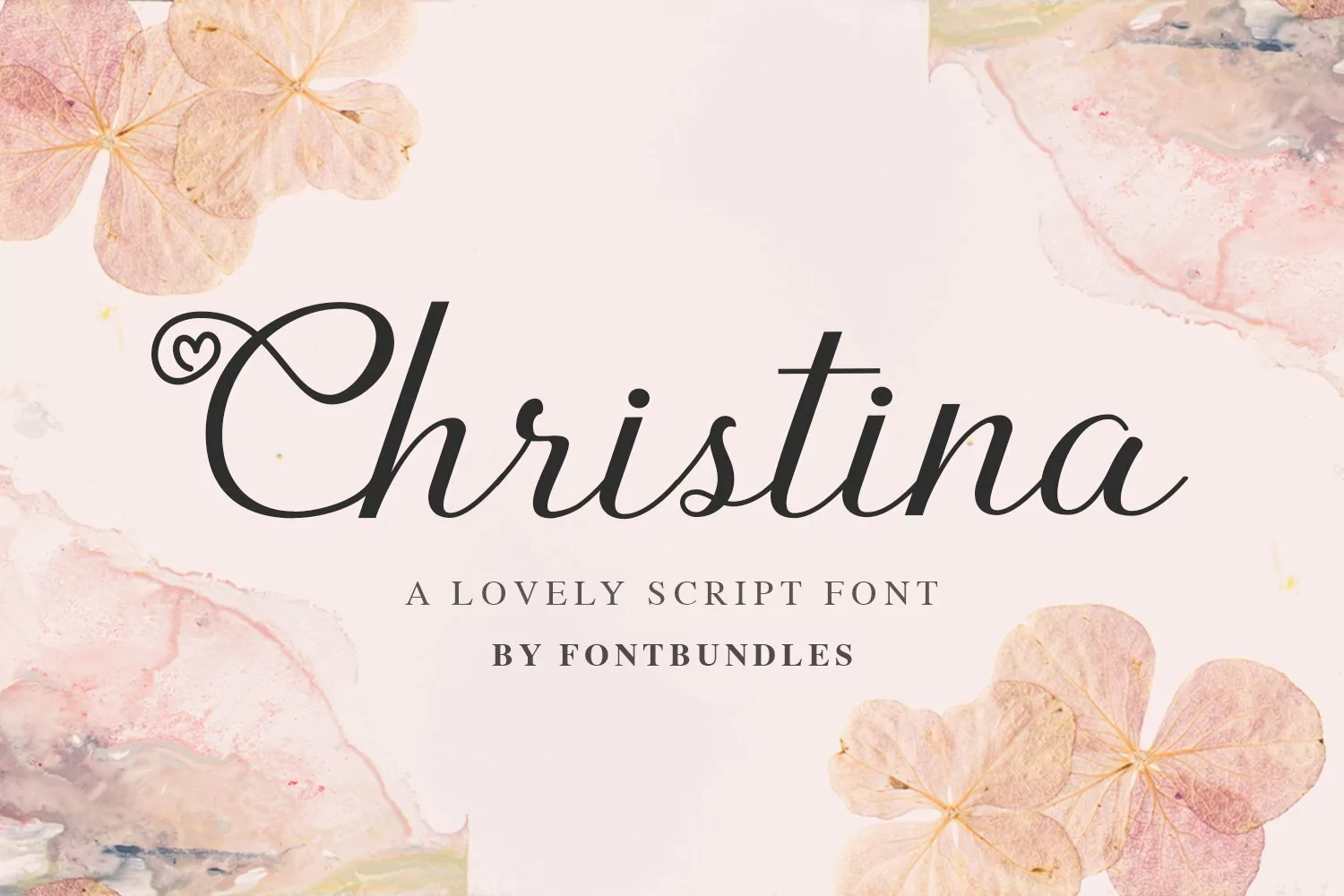
Christina is a lovely script font. With a style somewhat reminiscent of calligraphy, this font has a pleasing flow from character to character. Christina would be a great font choice for when you want a touch of sweetness in your projects or designs. Great for weddings, invitations, logos, packaging and more.